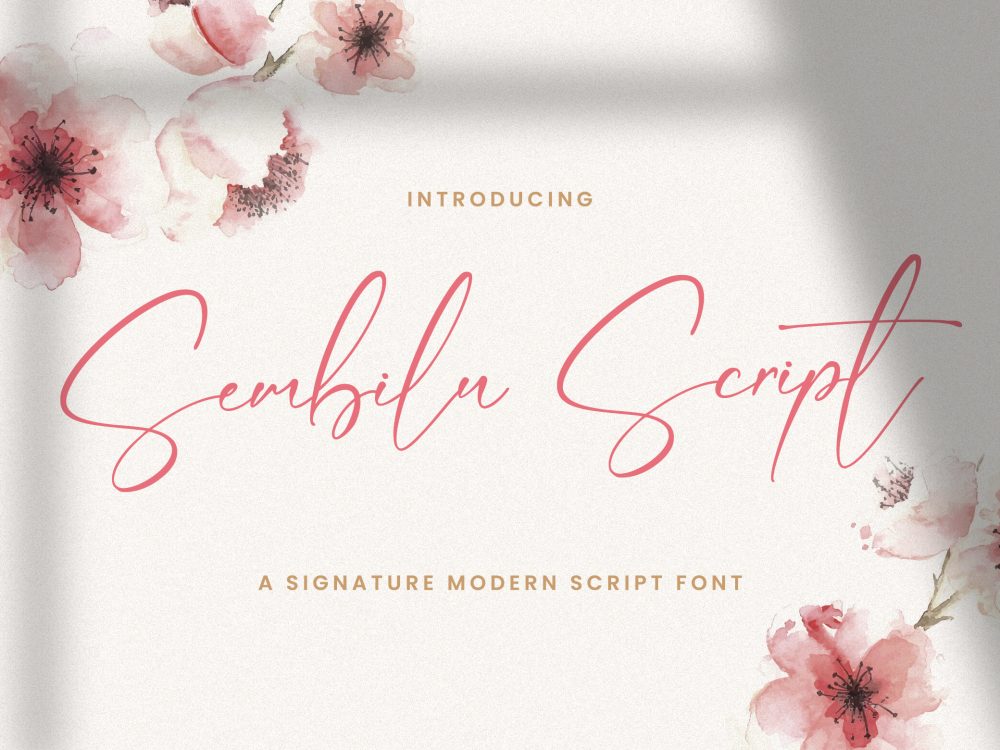
Sembilu Script Free Font
Introducing Sembilu Script Free Font, a captivating and graceful handwritten font that embodies delicacy, elegance, and fluidity. With its meticulously crafted and harmonious characters, this font seamlessly complements a diverse range of design projects. Infuse your most imaginative ideas with Sembilu Script and witness how it breathes life into them, adding a captivating allure. Elevate your designs with the mesmerizing charm of Sembilu Script today. If you like it don’t forget to check out the full version.